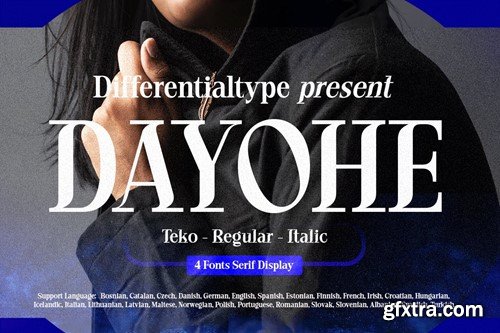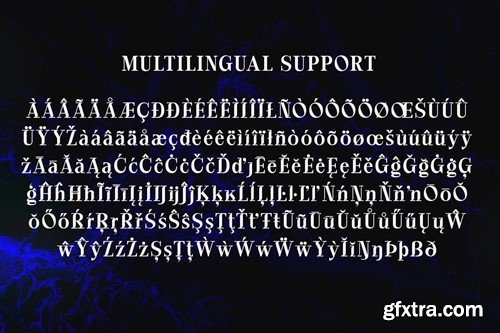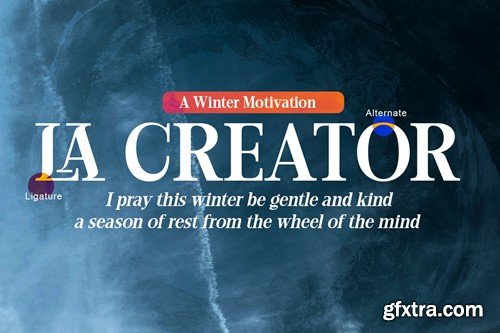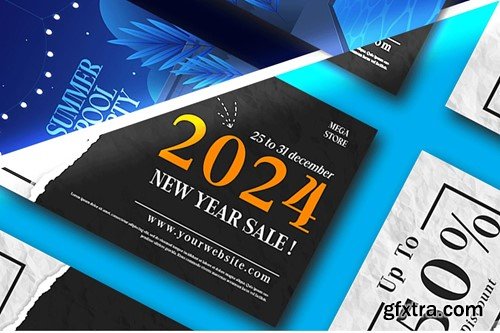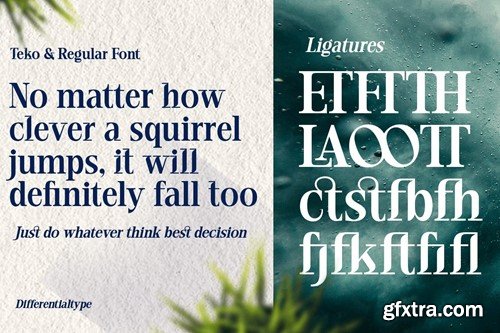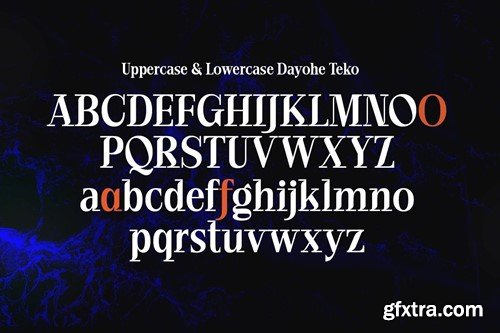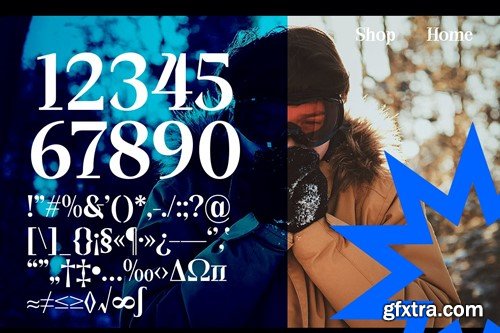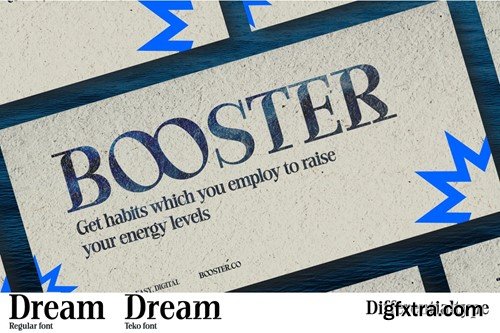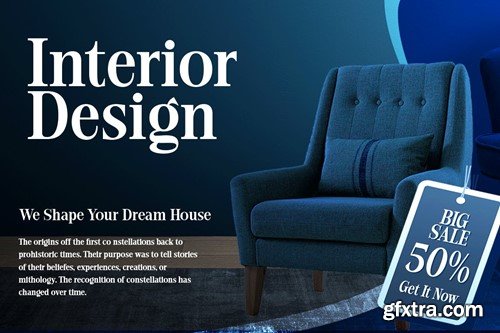
Dayohe - 现代衬线字体 XRQNGBA
Dayohe - Modern Serif Font
Immerse yourself in the world of elegance and modernity with Dayohe, a fashion-forward serif display font available in four exclusive styles. Dayohe is meticulously crafted to exude a bold and enticing appeal that effortlessly captures and retains readers' attention. Its refined aesthetic makes it an indispensable choice for chic logos and high-end branding, particularly within the realm of fashion, beauty, and luxury services. With Dayohe, prepare to elevate your brand's presence with grace, sophistication and contemporary flair. Include 4 Style: Files : Features :